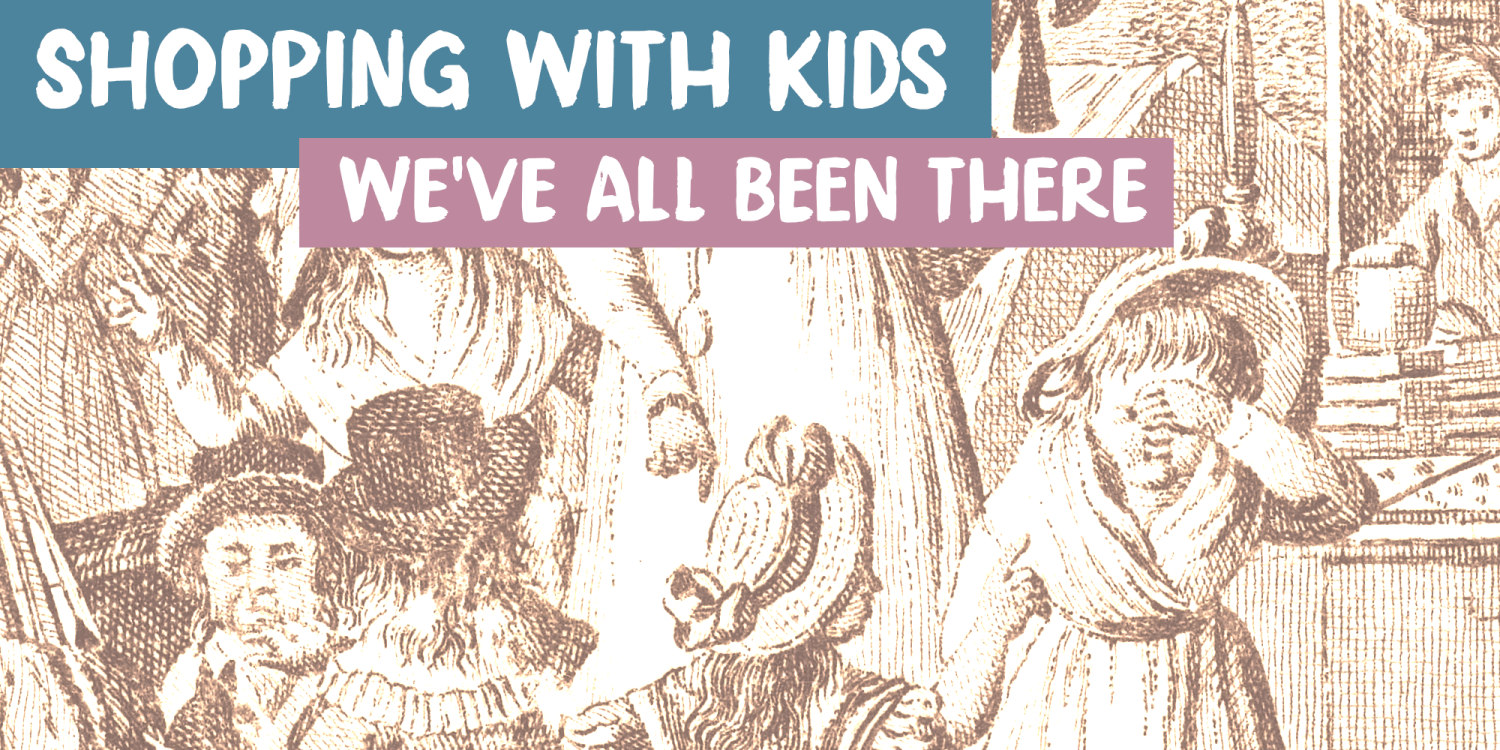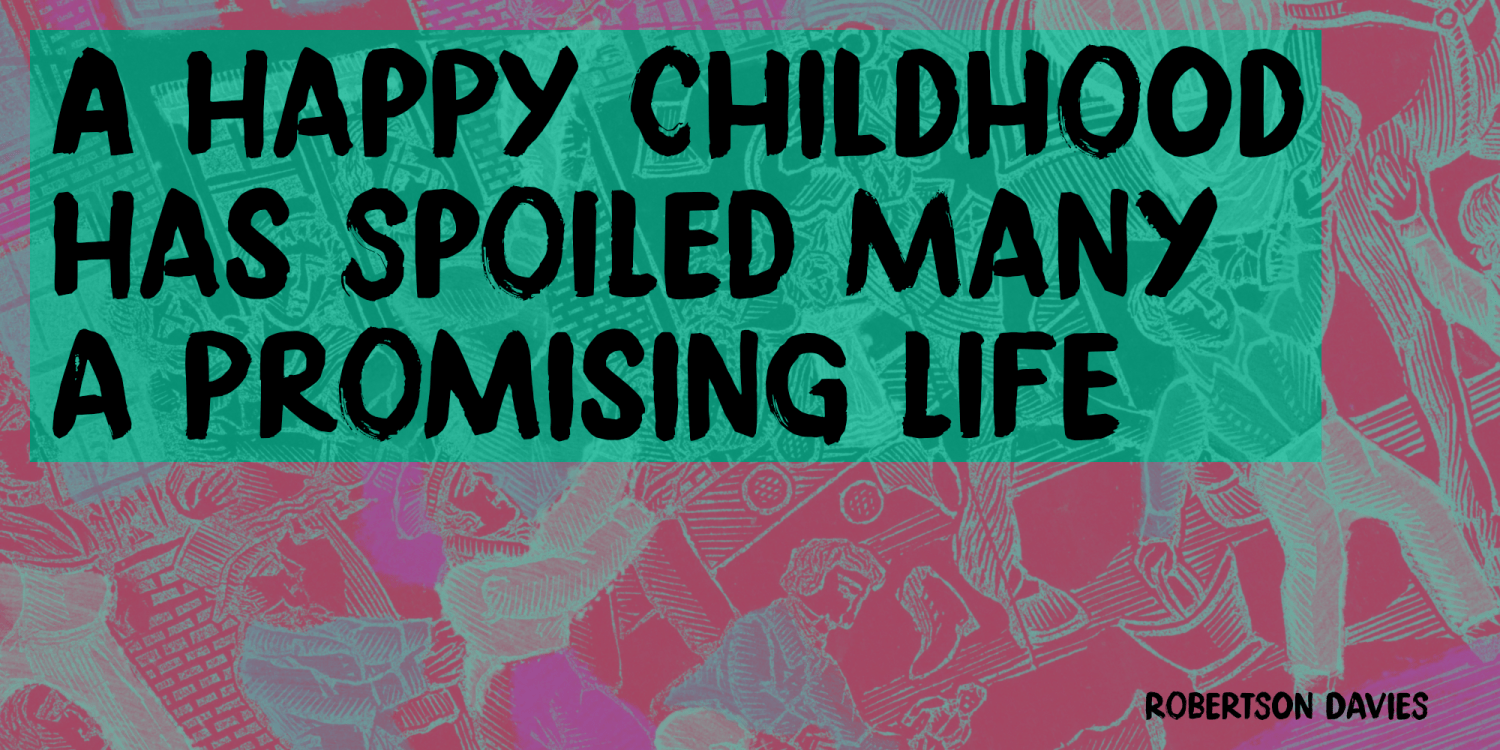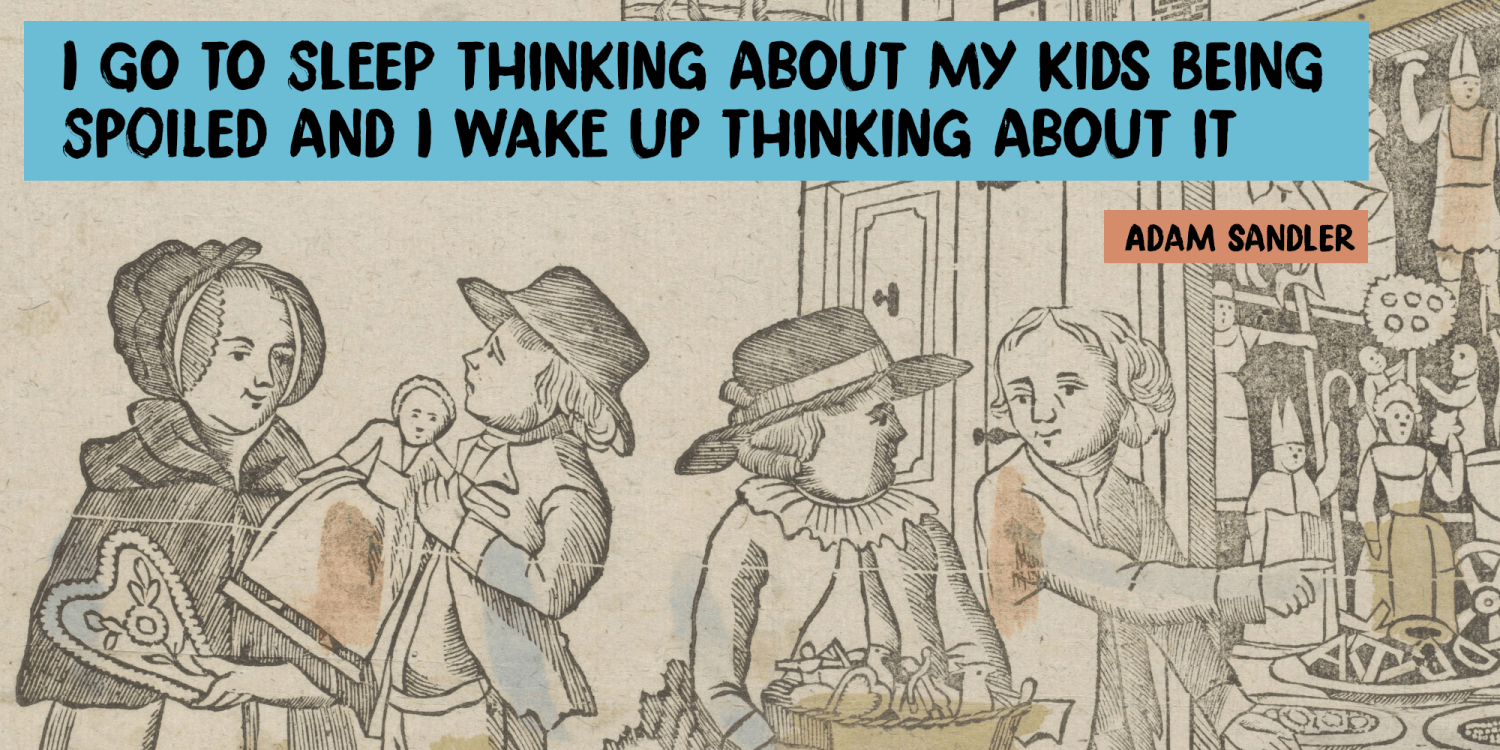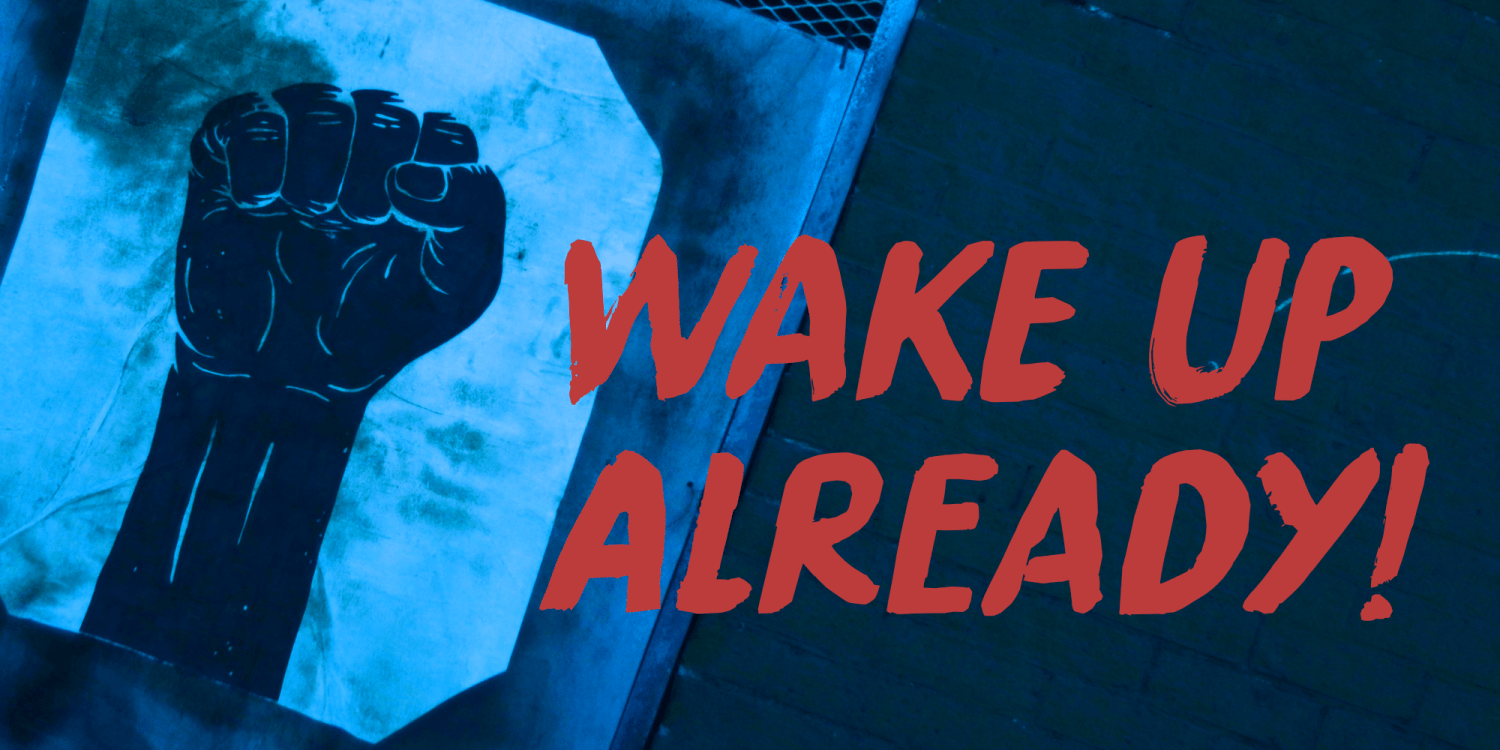
Spoiled Rotten
Spoiled Rotten was made with ink and a brush and even though it looks rough, its uses can be manifold. Book covers? You bet! Instantly recognisable packaging? Right on! Loud public posters? No problem!
Spoiled Rotten also comes with extensive language support and a gorgeous set of alternates for the lower case glyphs that cycles as you type.